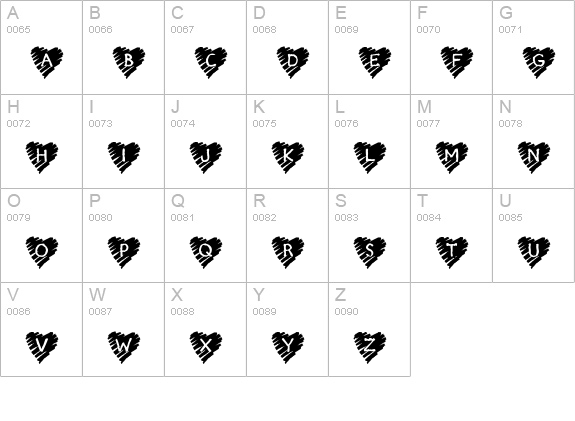
Introducing KR Scribble Heart font, a playful and whimsical typeface that adds a touch of charm to any project. This unique font features hand-drawn heart-shaped glyphs with a scribbled texture, perfect for adding a fun and creative element to your designs. The varying sizes and styles of the hearts create a dynamic and eye-catching look that is sure to stand out. What's even better is that KR Scribble Heart font is completely free to download at FontsMarket.com! Whether you're working on a greeting card, poster, or social media graphic, this font is a versatile choice that will bring a smile to your audience's face. Don't miss out on the opportunity to add a touch of love and whimsy to your designs with KR Scribble Heart font - download it today and let your creativity shine!